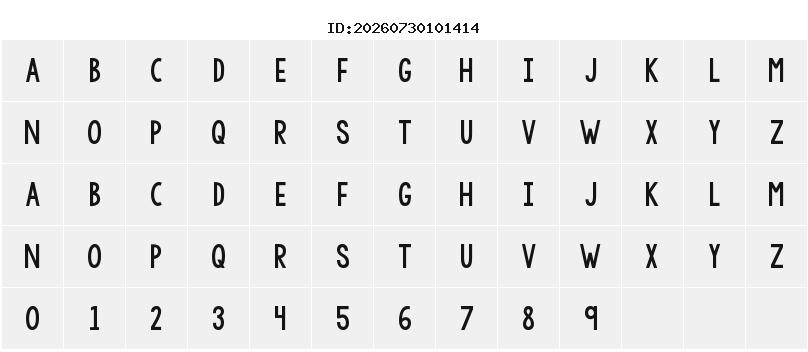
• Font Name: KG Sorry Not Sorry Chub
• Full Font Name: KG Sorry Not Sorry Chub
• Designer: Kimberly Geswein
About KG Sorry Not Sorry Chub.ttf
KG Sorry Not Sorry Chub.ttf is a modern, elegant sans-serif font designed for ultimate readability and visual harmony. Perfect for branding, headlines, web design, and print materials.